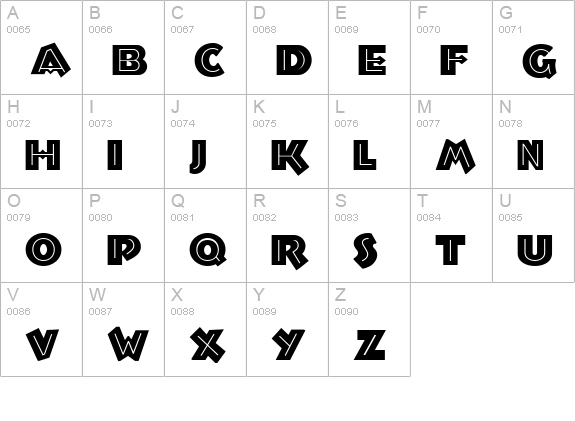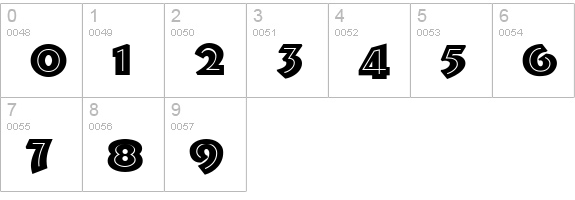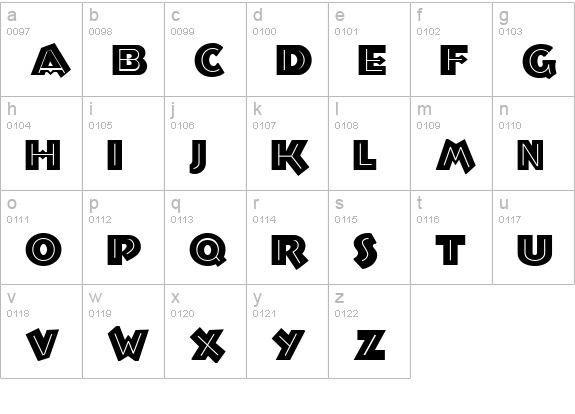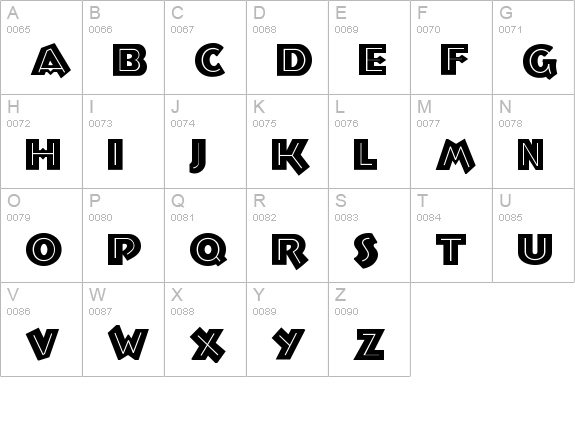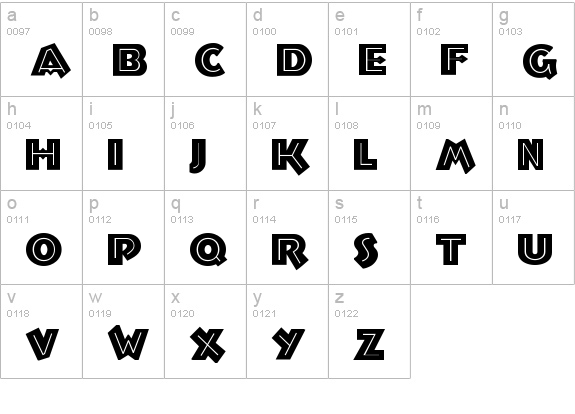
Troglodyte NF Font Details
Troglodyte NF font is a unique and eye-catching typeface that combines modern design with a touch of vintage charm. Its bold and rugged appearance makes it perfect for a wide range of creative projects, from posters to logos to branding materials. The font features a distinctive hand-drawn style that gives it a raw and organic feel, making it stand out from the crowd. What's even better is that Troglodyte NF font is completely free to download! You can get your hands on this one-of-a-kind font at FontsMarket.com, where you'll find a vast collection of high-quality fonts for all your design needs. Don't miss out on the opportunity to add Troglodyte NF font to your font library today!